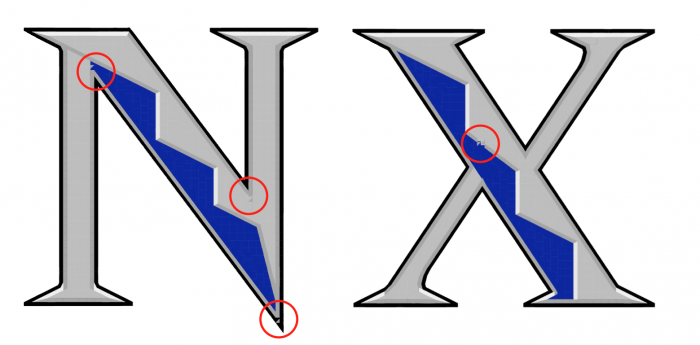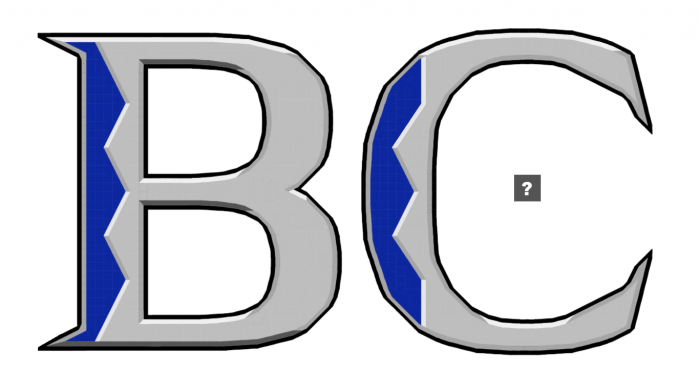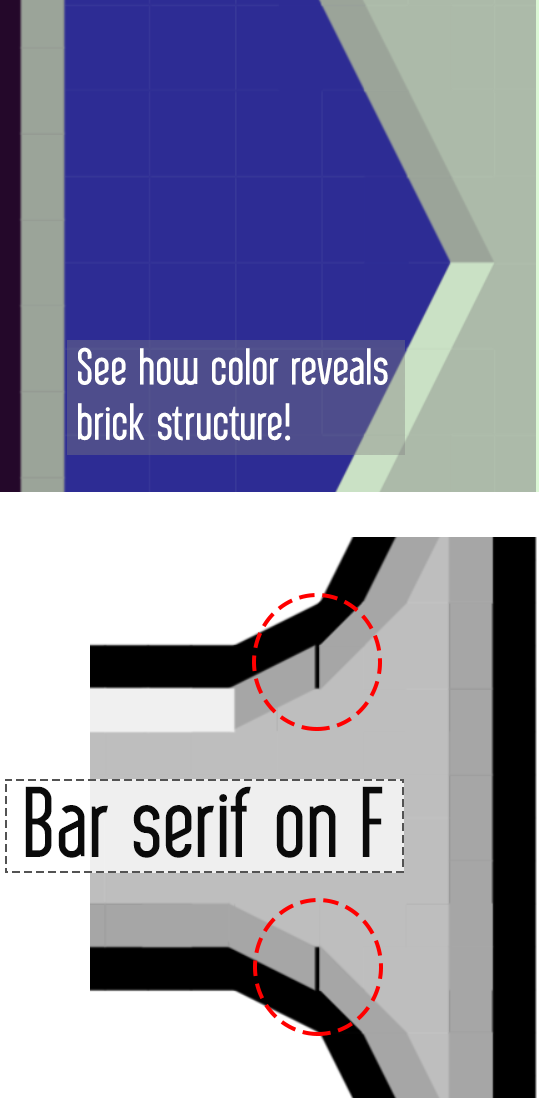
I started this late and suffered the consequences, but had to release something. This took a long time and didn't look like how I wanted it to or as good as I wanted it to, but there it is. WIP as I attempt to clean up and adust stuff.
Really impressive work! You leave me speechless! What delicacy in the bevels and what a beautiful general harmony! An authentic piece of Art to observe and improve our use of color functions. Chapeau, Master!
Let me point out a few misplaced bricks in N and X, and a question: what happened to the darker shadow color that appears only in A, B, and D? Thanks in advance.
It's a real pleasure to look more closelly all the glyphs.
Anyone ever noticed that these Polychrome fonts in some specific colors are a dead giveaway in regard to the font's brick layout, hence revealing the inner grid structure of the fonts construction.
Not that I could care much tho, but I think some people would rather not reveal their tricks of the trade!!
So beware...
@elmo @sed4tives Haha! Thanks for the input guys, but you don't have to tell me what's wrong as I'm the expert in everything that went awry with this. Not to make excuses, but it was the end of the day, I was tired, weird slowdowns kept happening with the fontstructor, and I had to release in time. What became evident was that without the ability to copy and paste from one layer to another, I had to precisely recreate the complexity of the base font with multiple custom angled bricks plus nudging - so it was like building a complicated structure from scratch eight times for each layer (easy with the ThunderGawd font with basic angles, much harder with custom 1:8, 1:4, 1:3, 2:3, 3:4 angled bricks). And thus goes my biggest feature request: Copying and pasting from one layer to another. (please meek! please!)
Beautiful.
Copy & Paste between layers would be a great help. Have you tried making a clone and copying from the clone to the new layer? You still work at glyph level, but it is faster than starting from scratch. 10/10